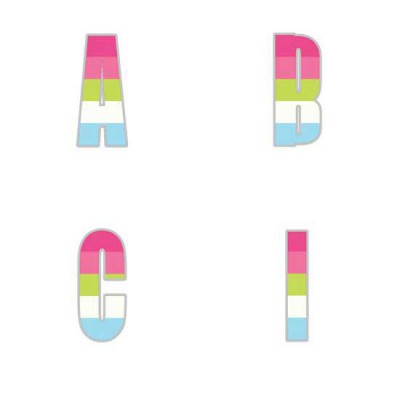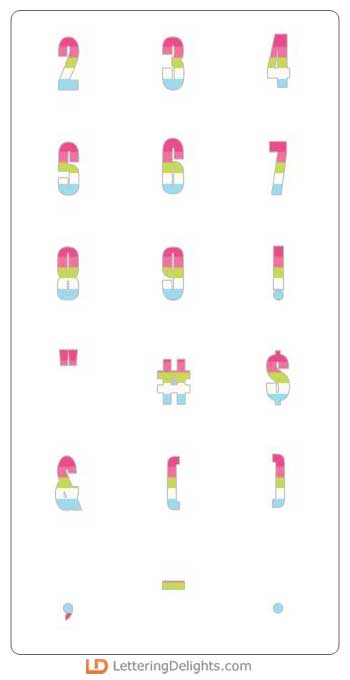
Created to coordinate with all the Love Rocks products, this alphabet is a rainbow of colorful joy. We think you'll have a blast with the Love Rocks products, but we know you won't be able to resist using this alphabet with so many of your bright, cheerful creative projects.